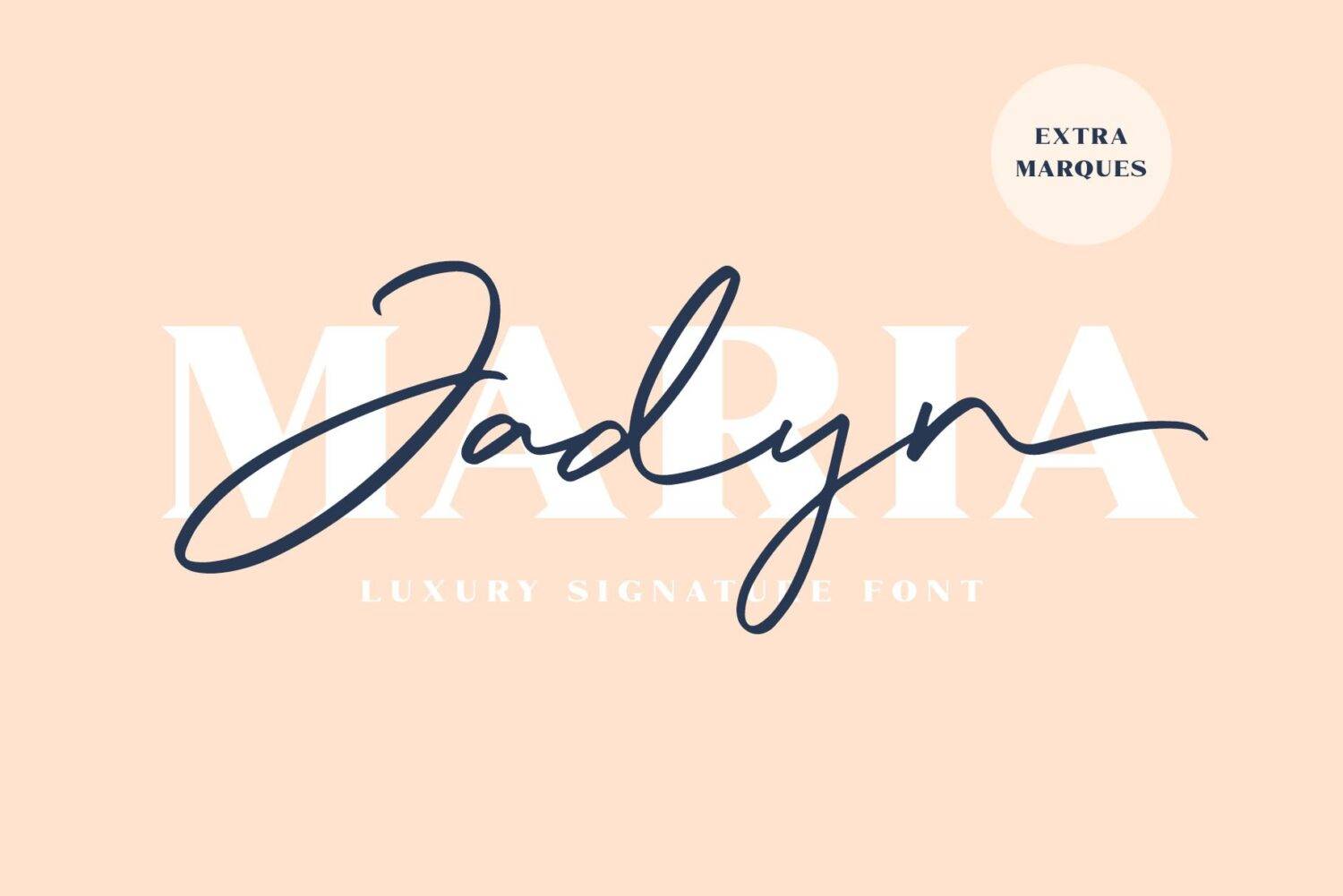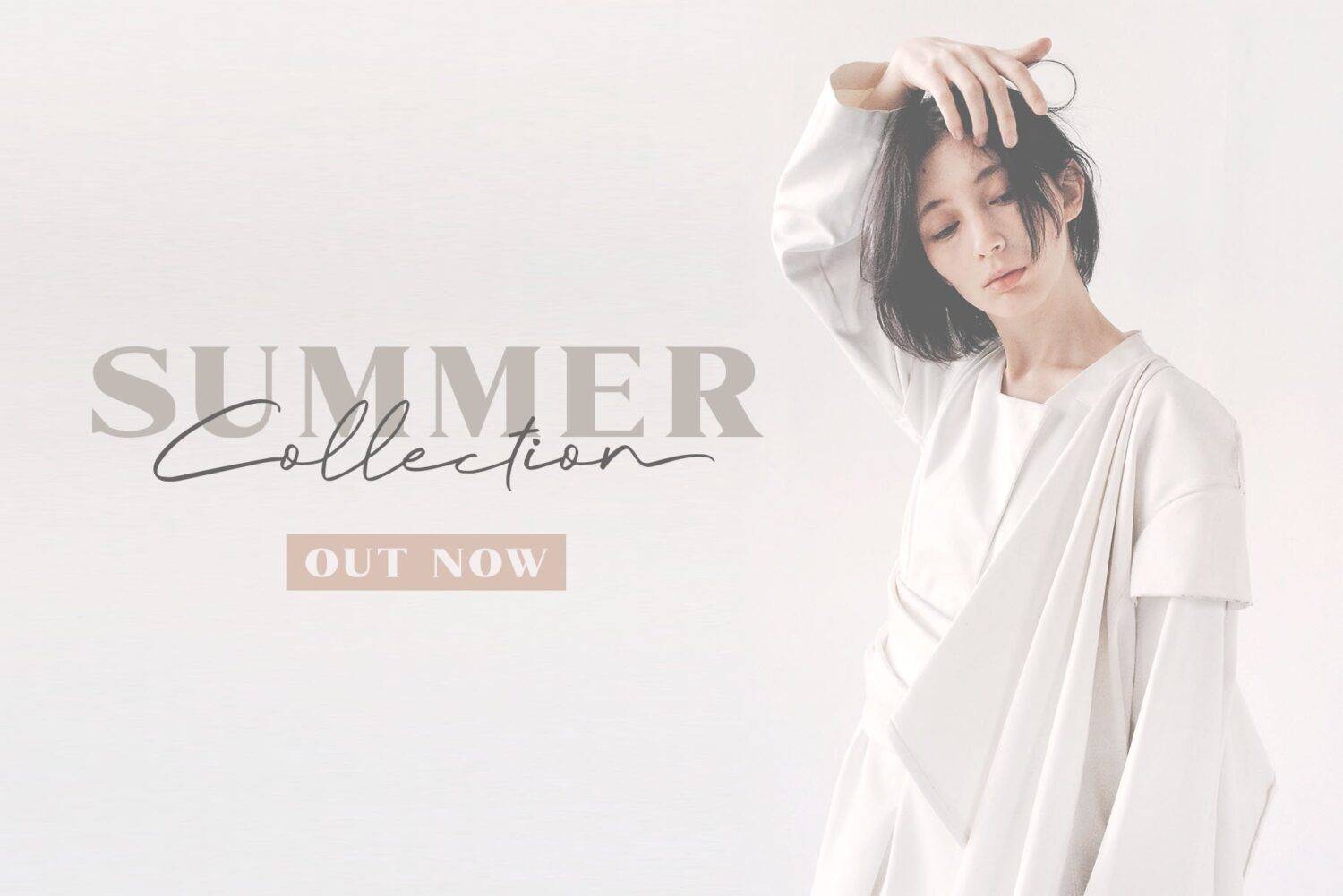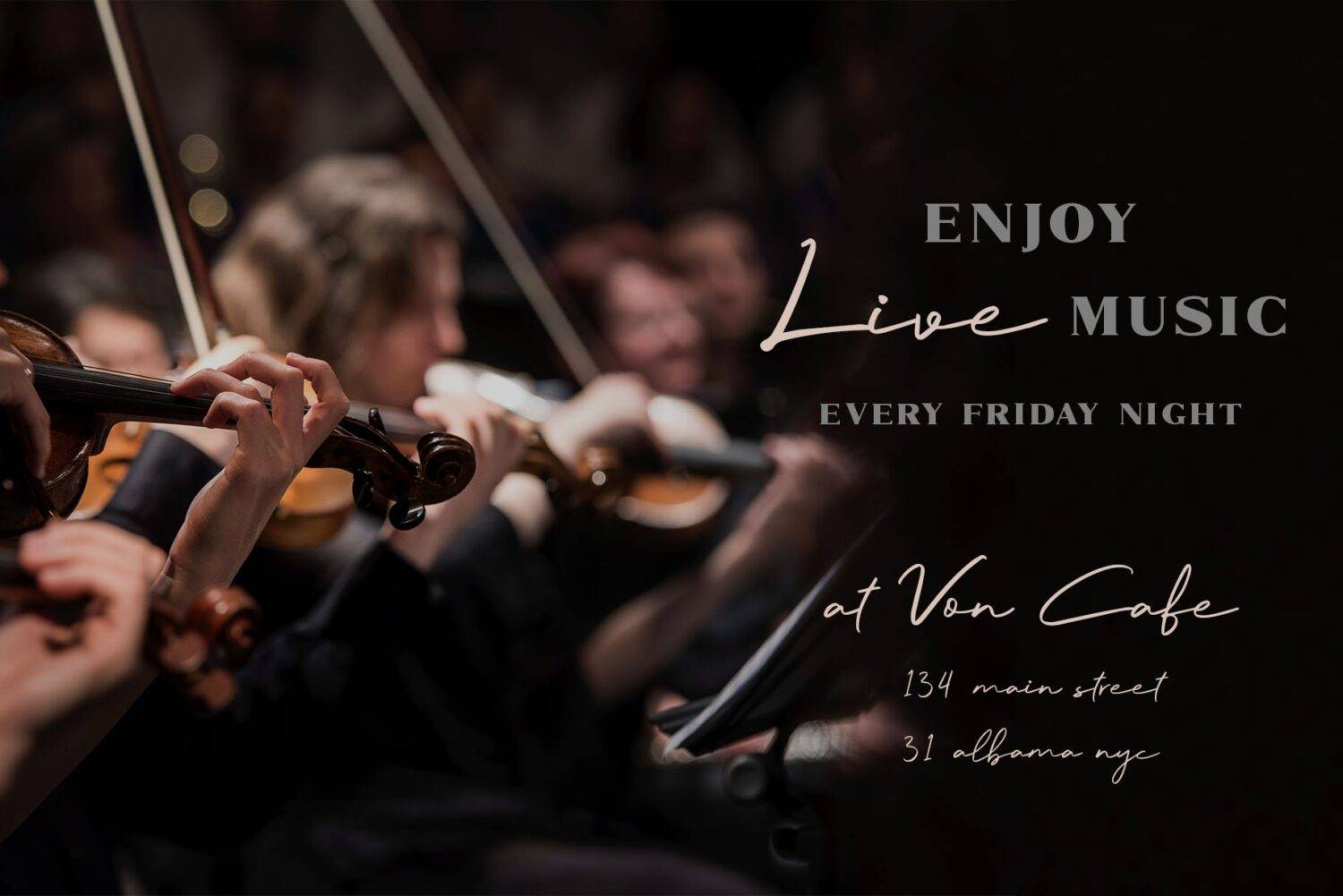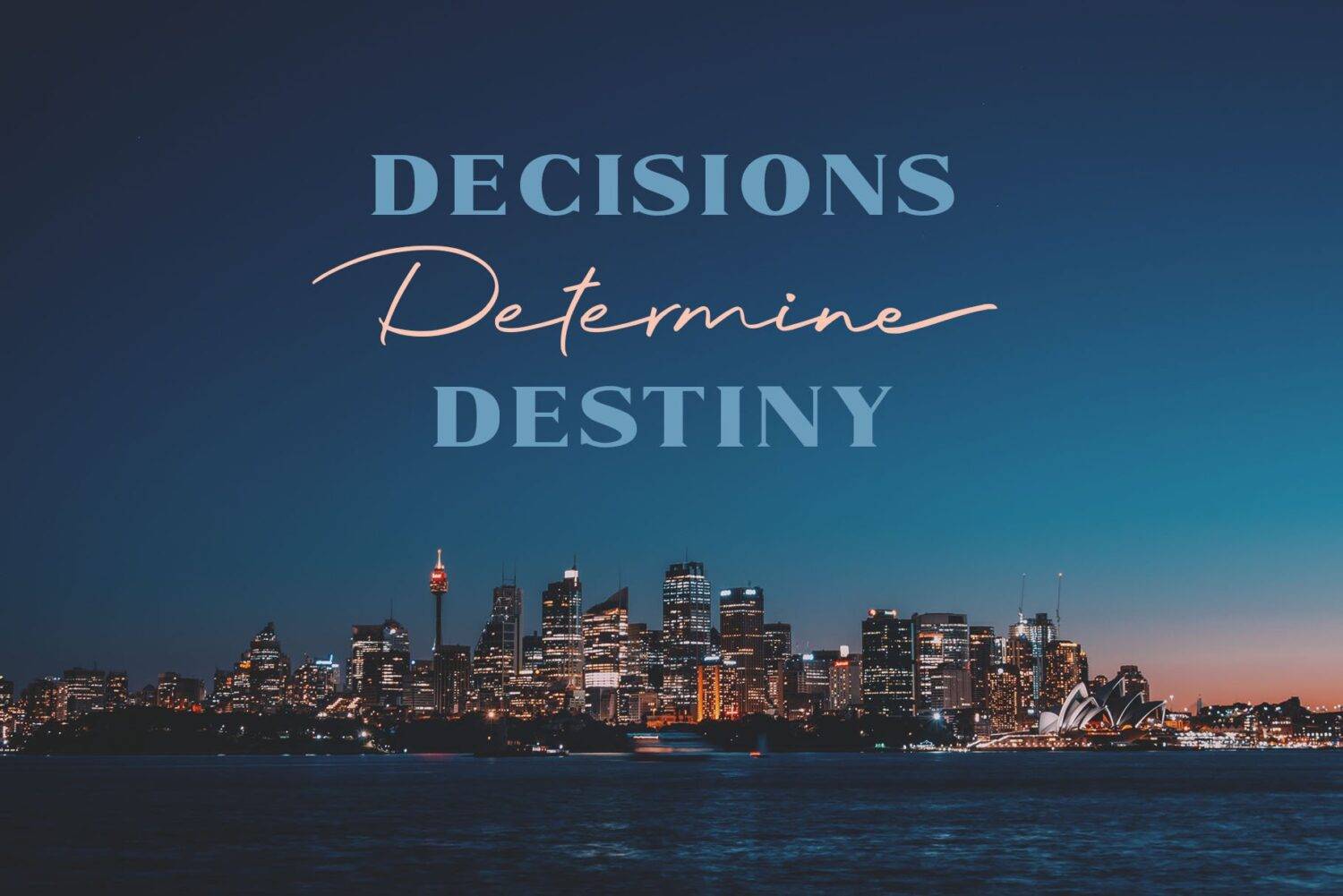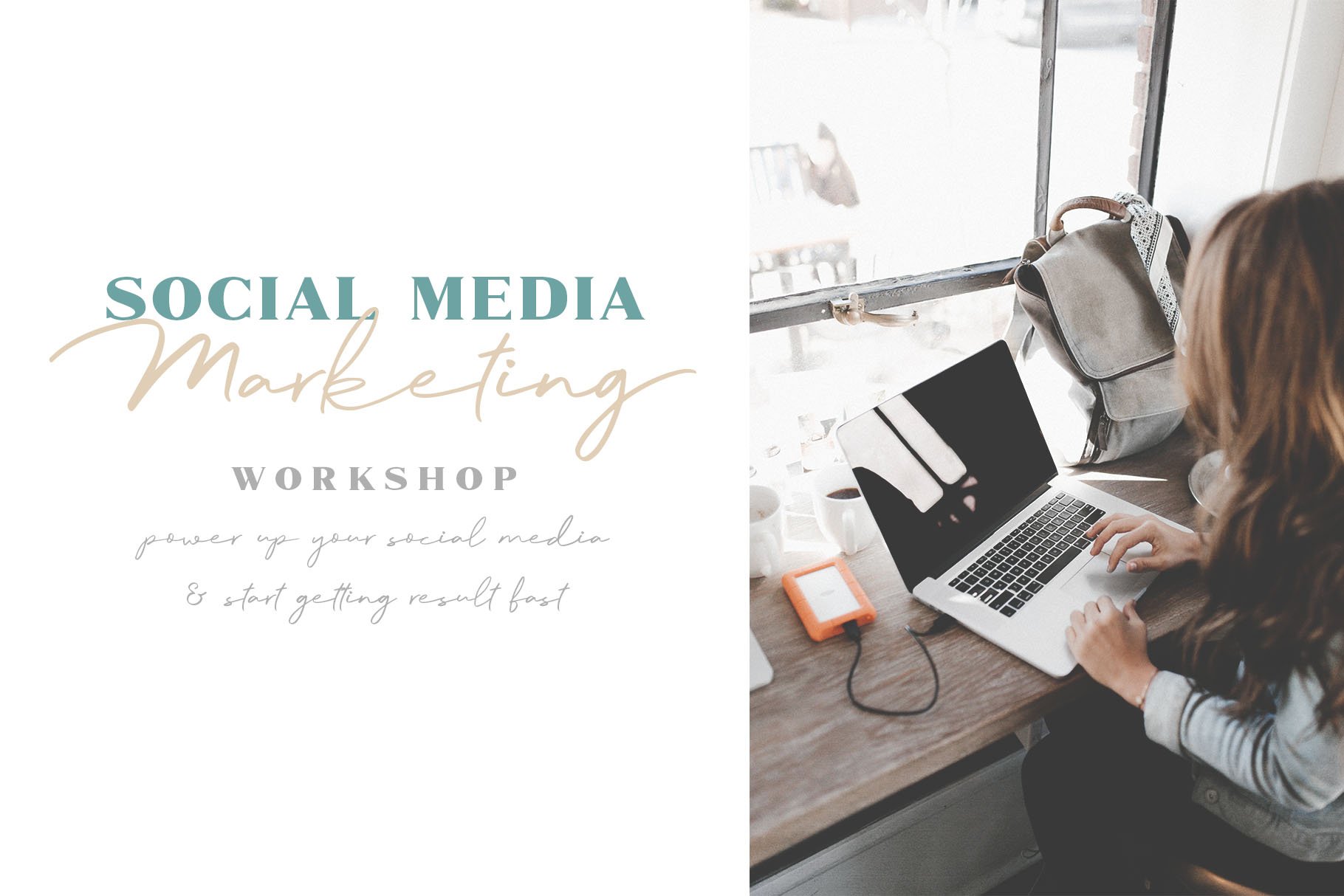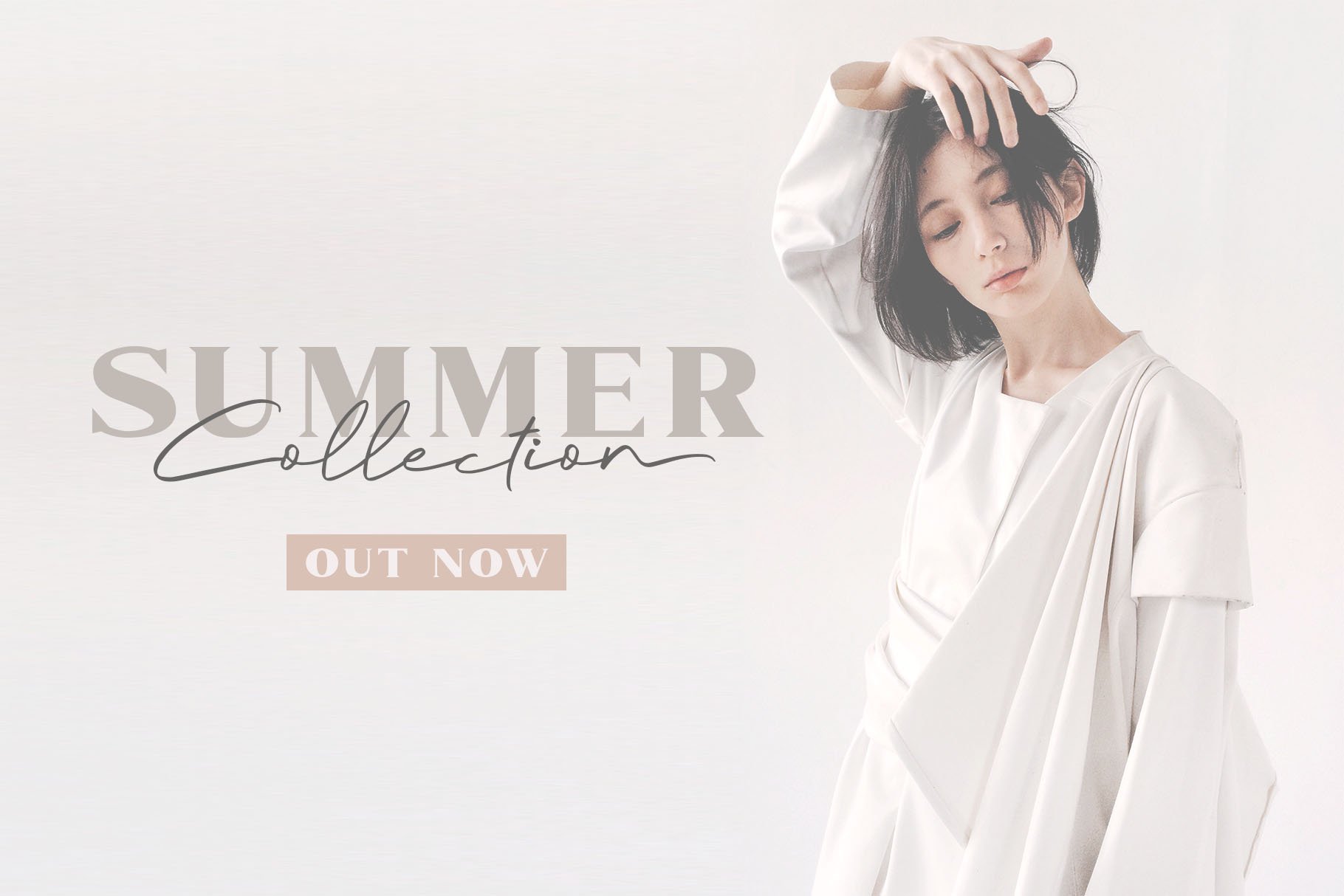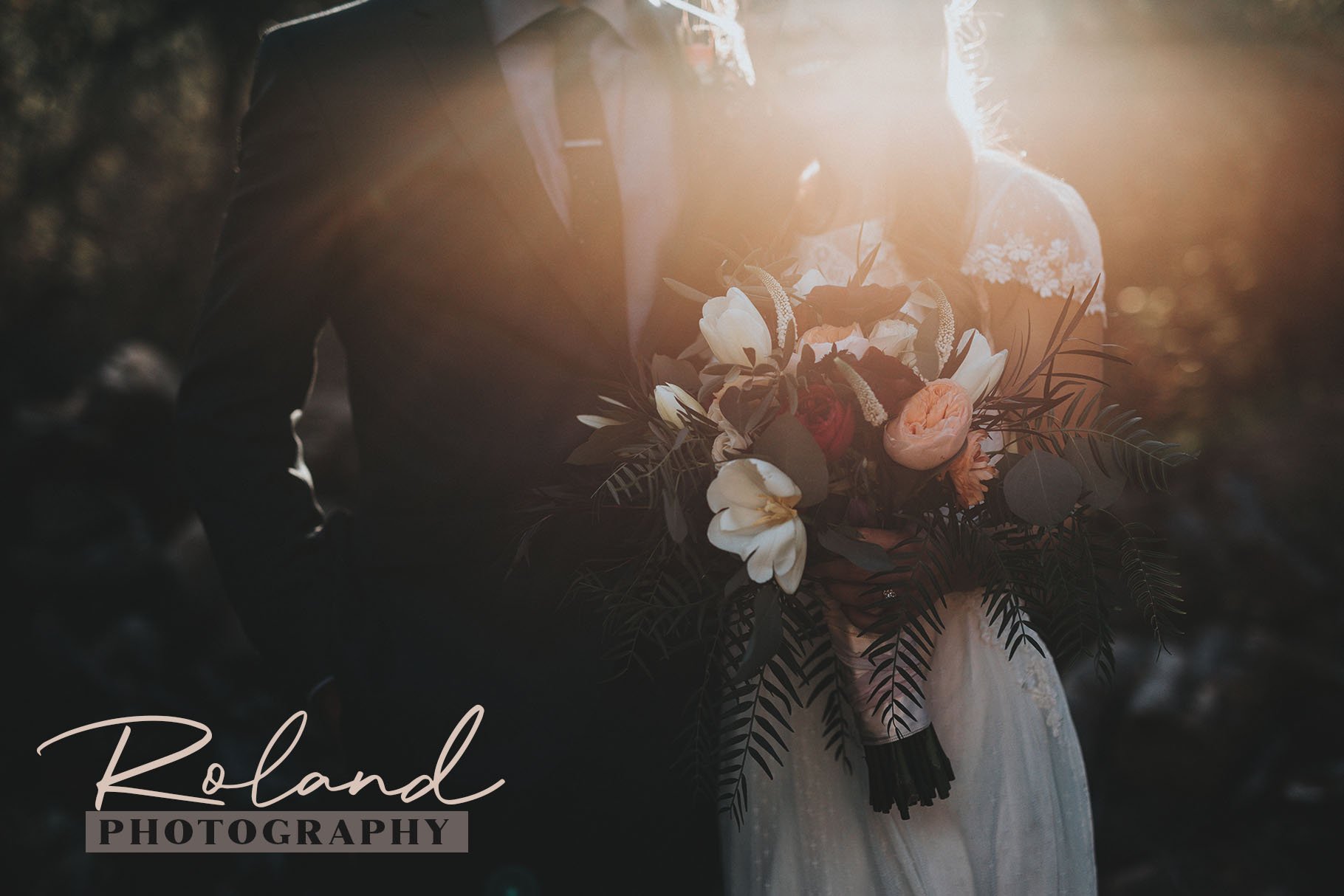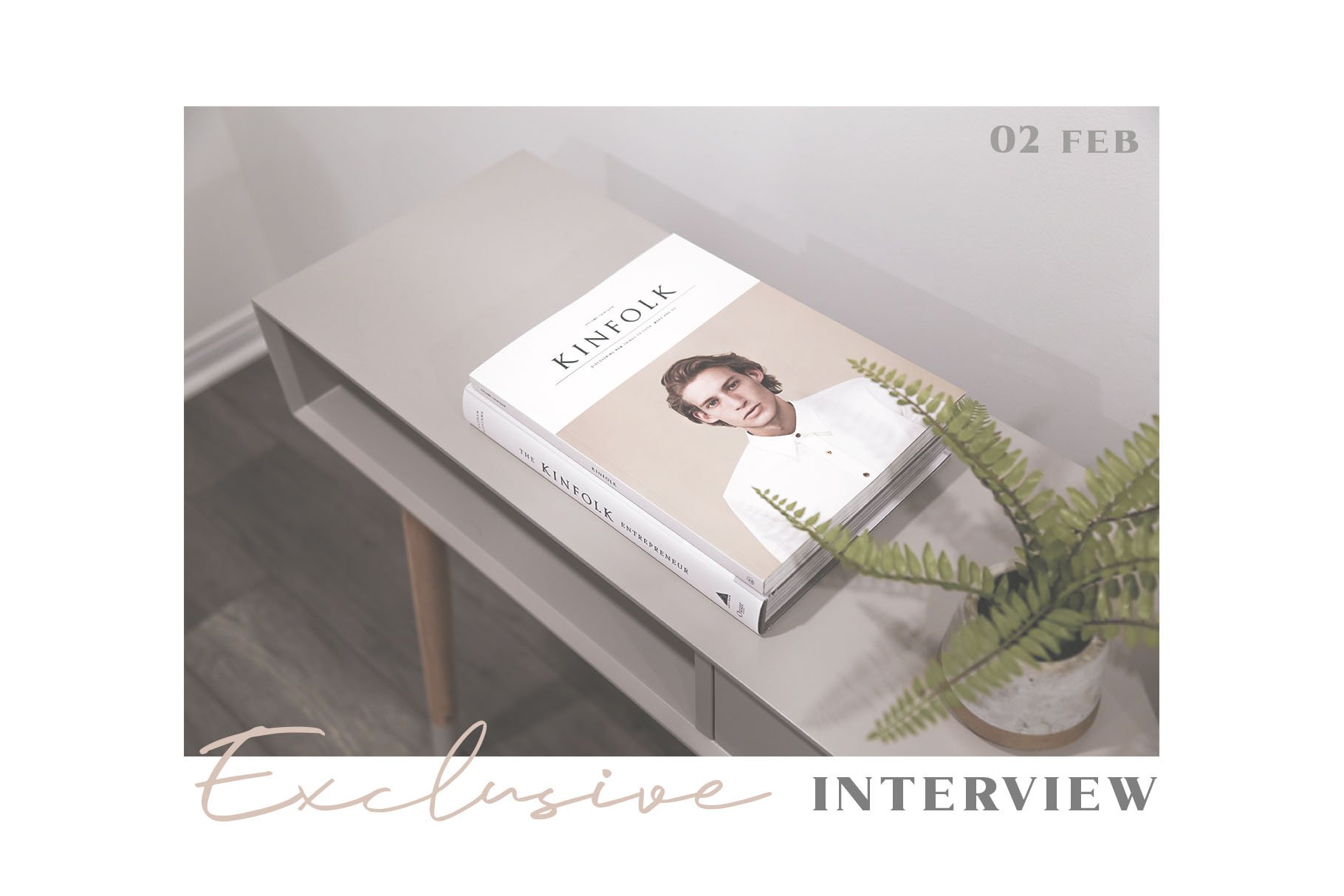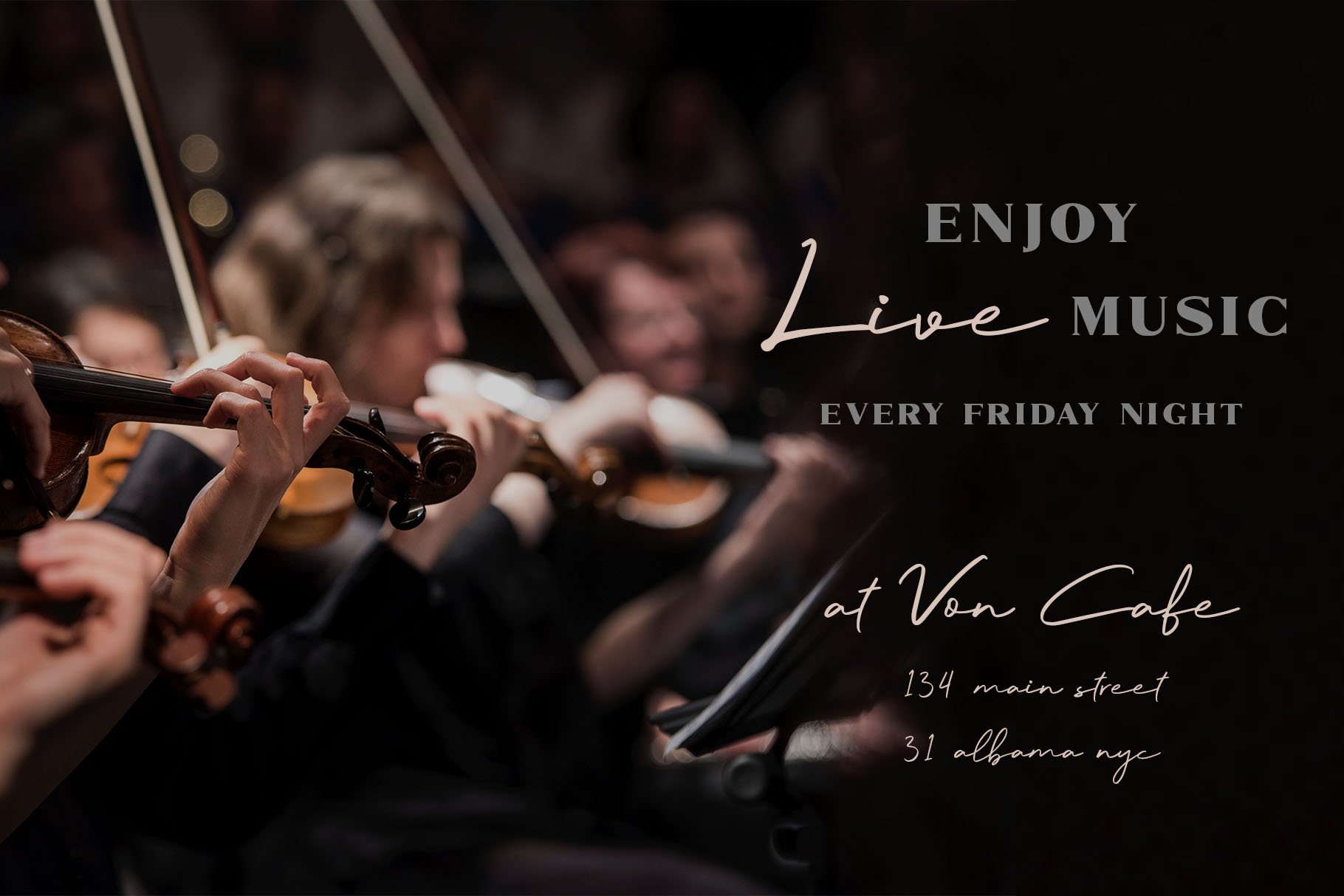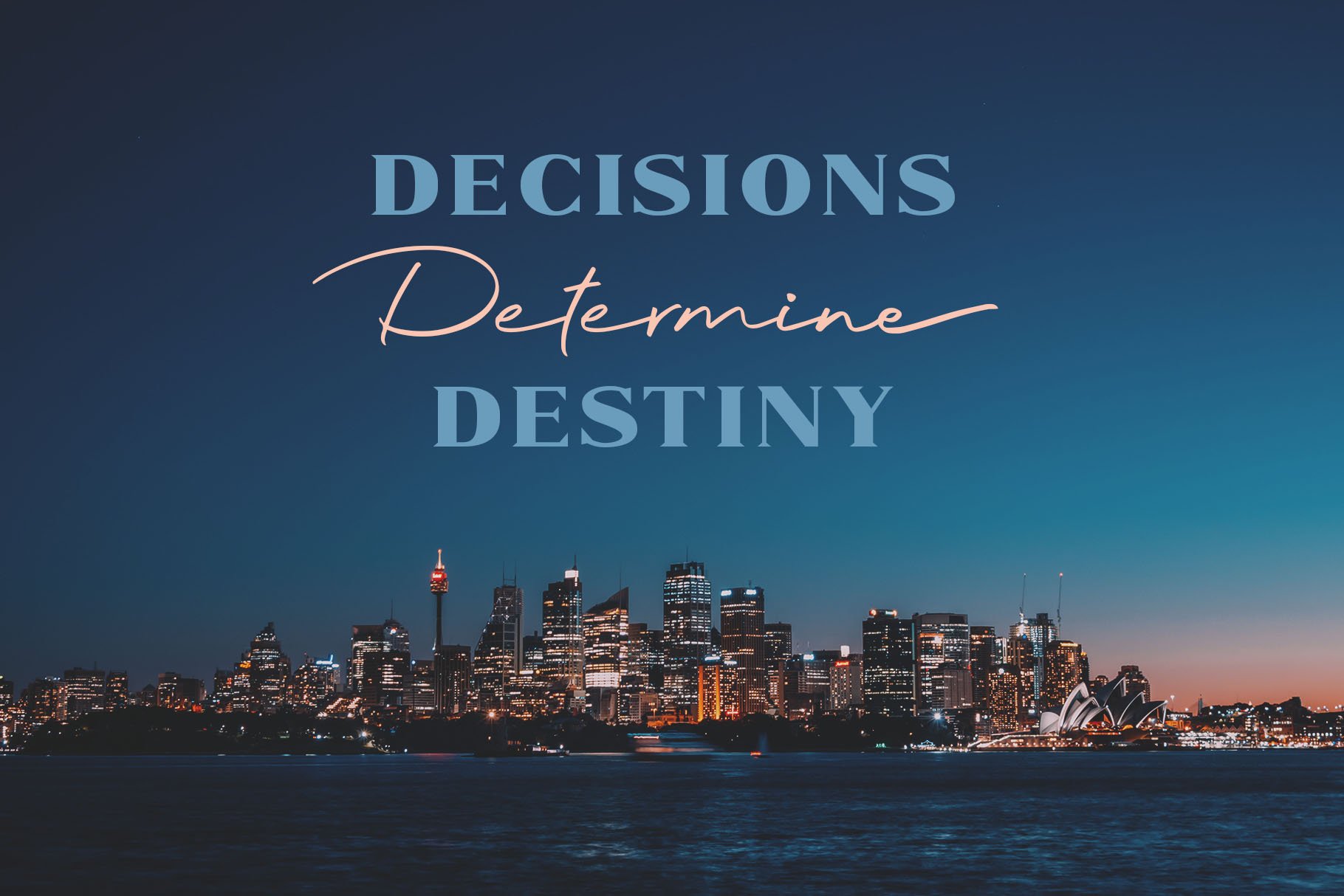
Jadyn Maria Luxury Font
Jadyn Maria Luxury Font is an handwritten script font based on the expression of real handwriting. Jadyn Maria – Luxury Signature Font + Extra will work perfectly for fashion, e-commerce brands, trend blogs, wedding boutiques or any business that wants to appear upscale and chic.